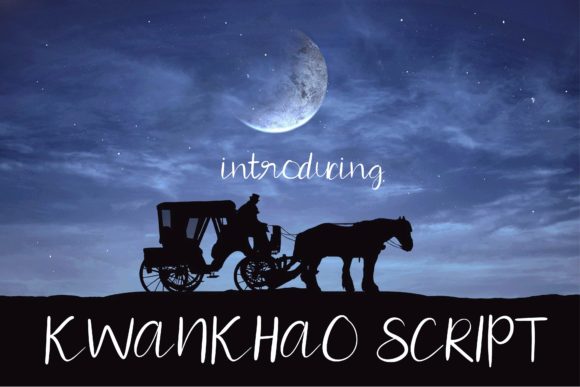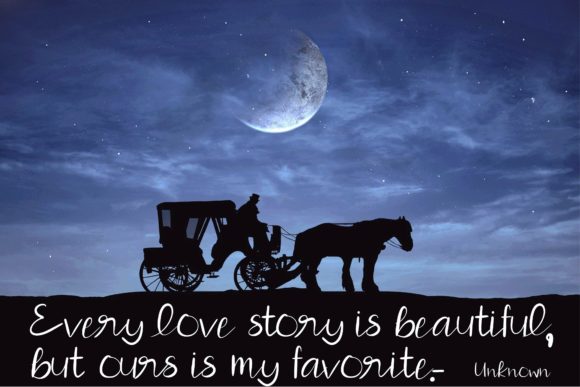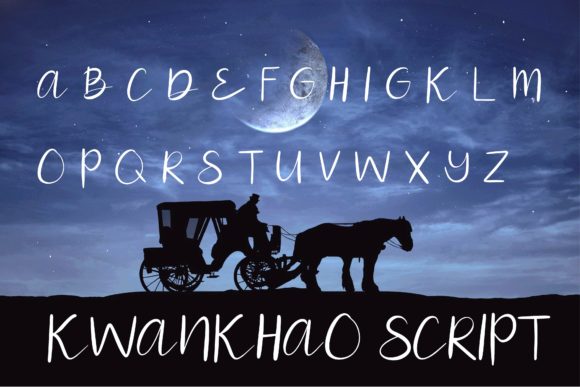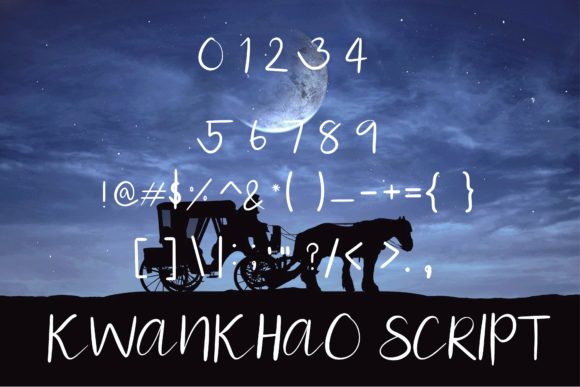
Kwankhao  Font
Kwankhao Script is a magical script font carefully created with a touch of elegance. Use this gorgeous and unique font to bring any DIY project to life!